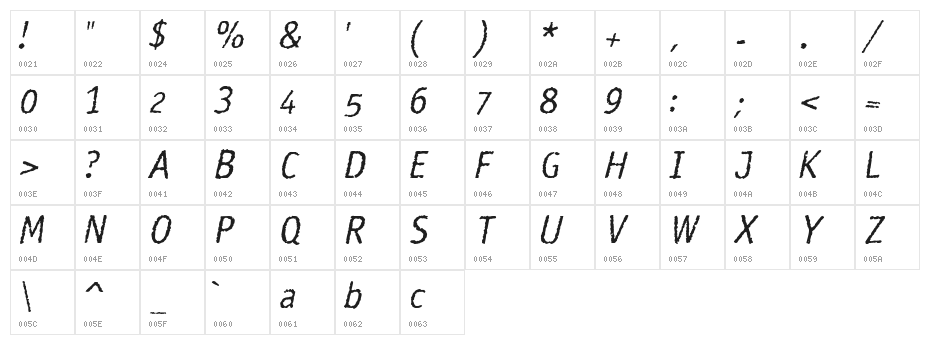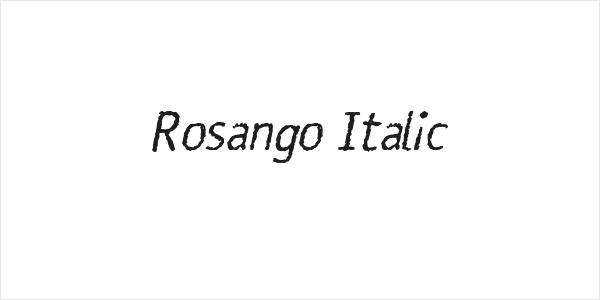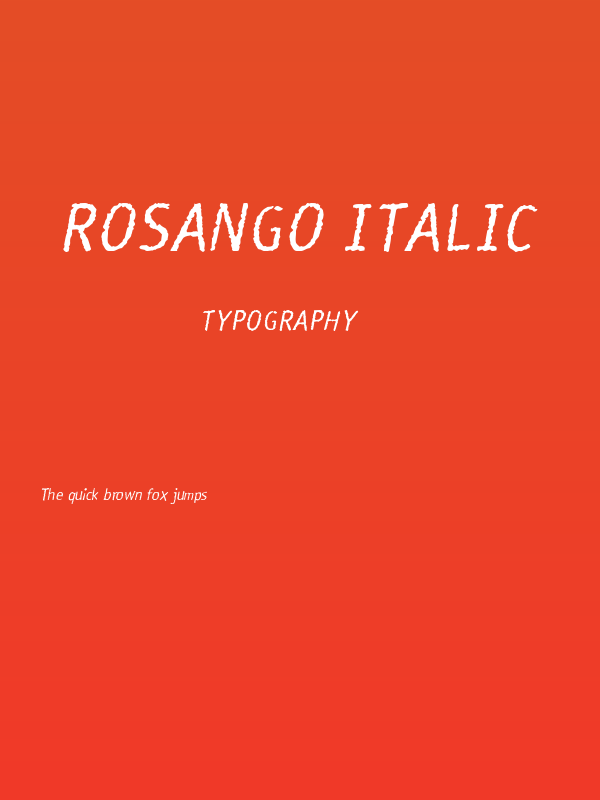
Rosango Italic Font
Rosango Italic Description
This font features a dynamic and energetic style with a distinct italic slant, giving it a sense of motion and fluidity. The characters are crafted with a textured, slightly rough appearance, adding a hand-drawn, artistic quality. The uppercase and lowercase letters maintain consistent proportions, while the numerals and special characters integrate seamlessly into the overall design. This font's unique texture and slant make it stand out, providing a creative and informal aesthetic.
| Overall Style | Artistic, Dynamic |
| Use Case | Logos, Posters, Creative Branding |
| Proposed Projects | Ideal for creative projects such as posters, artistic branding, and informal invitations. |